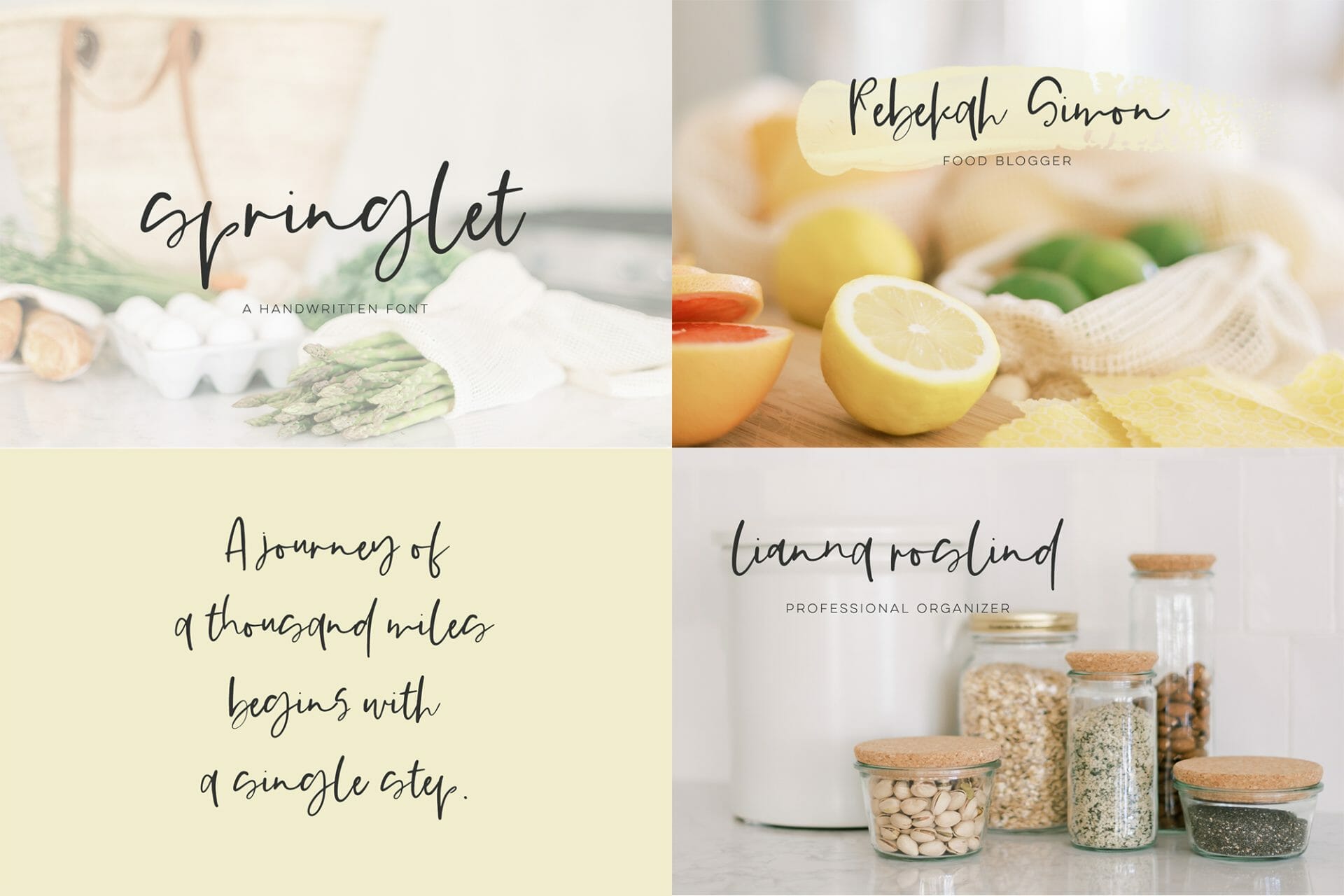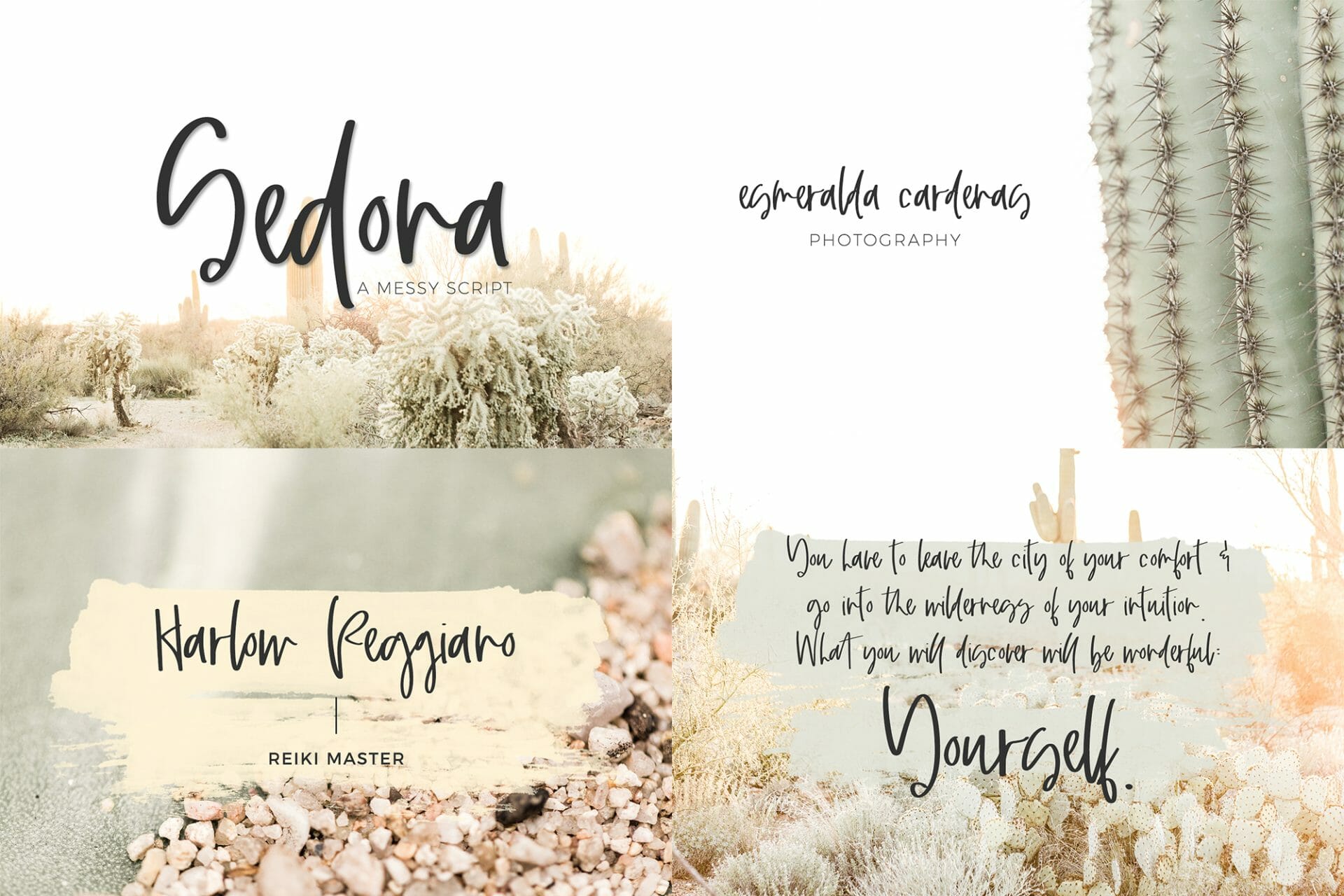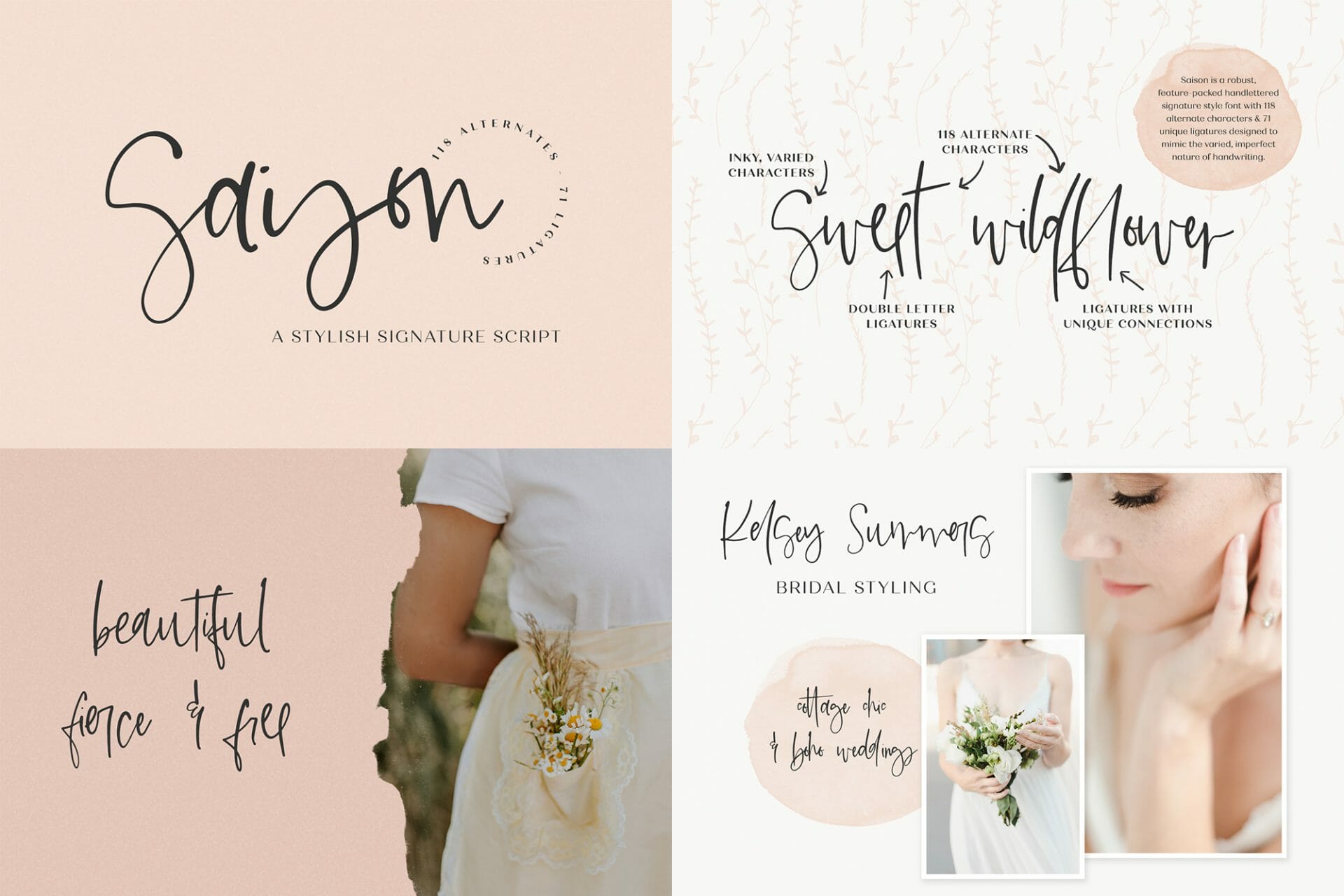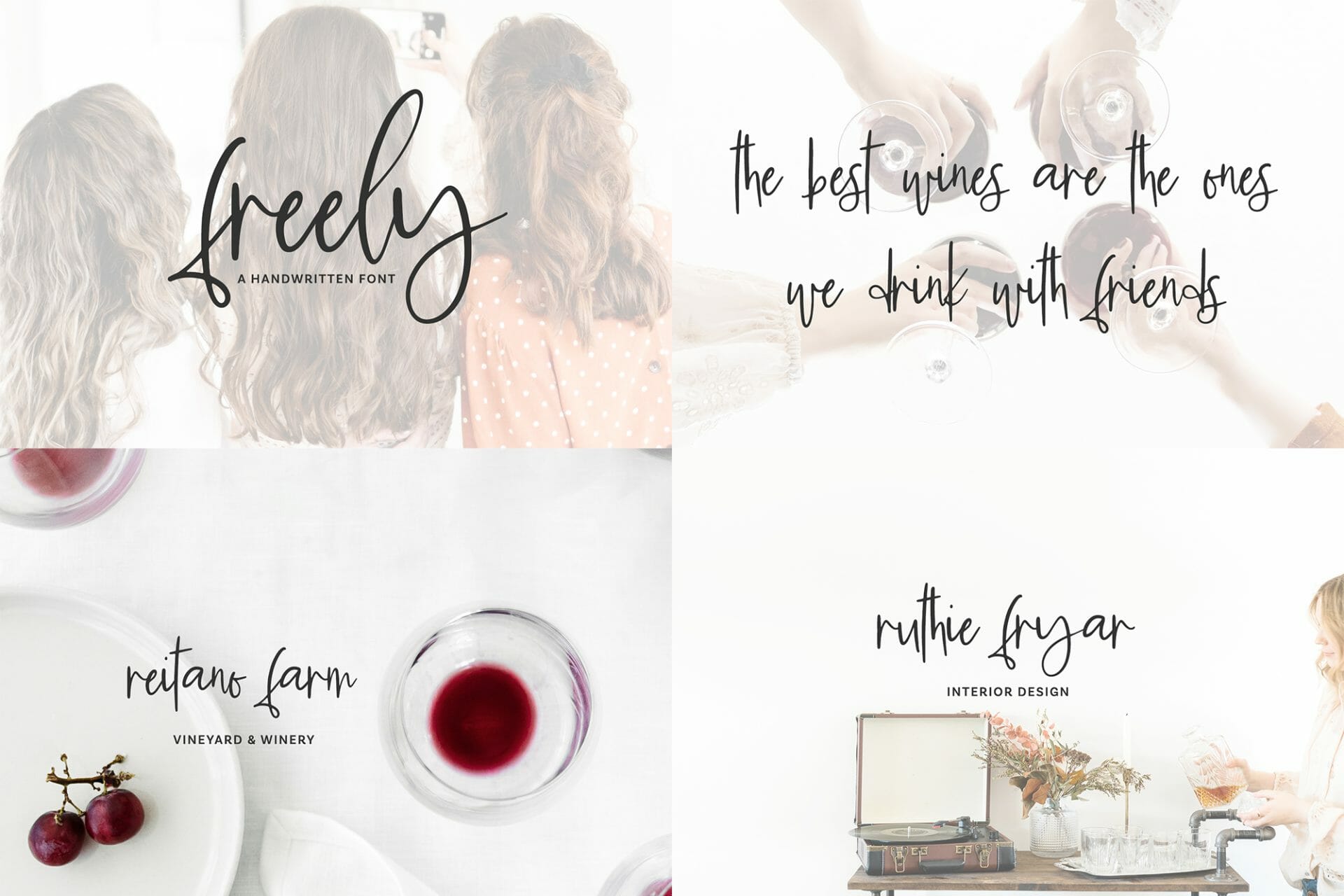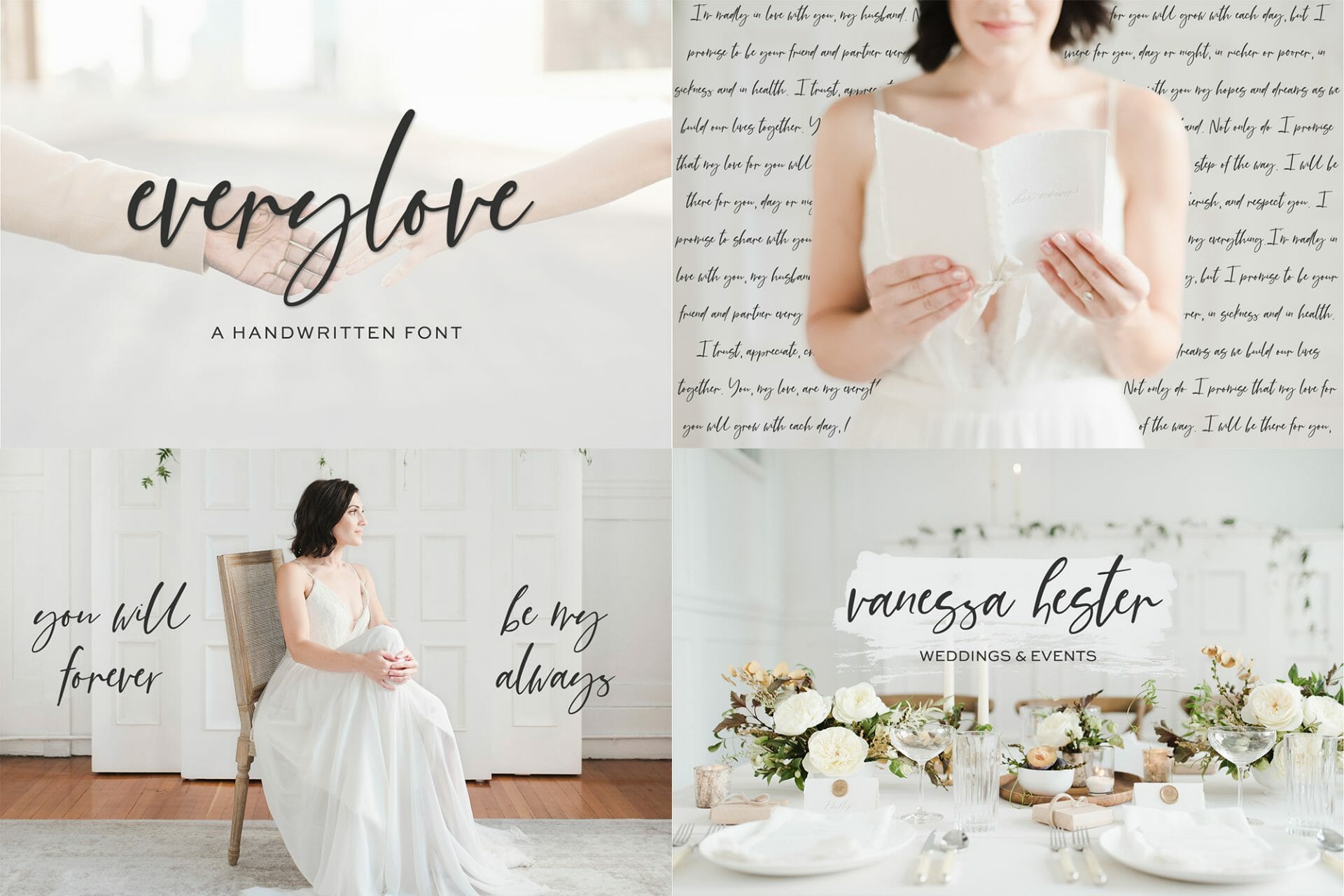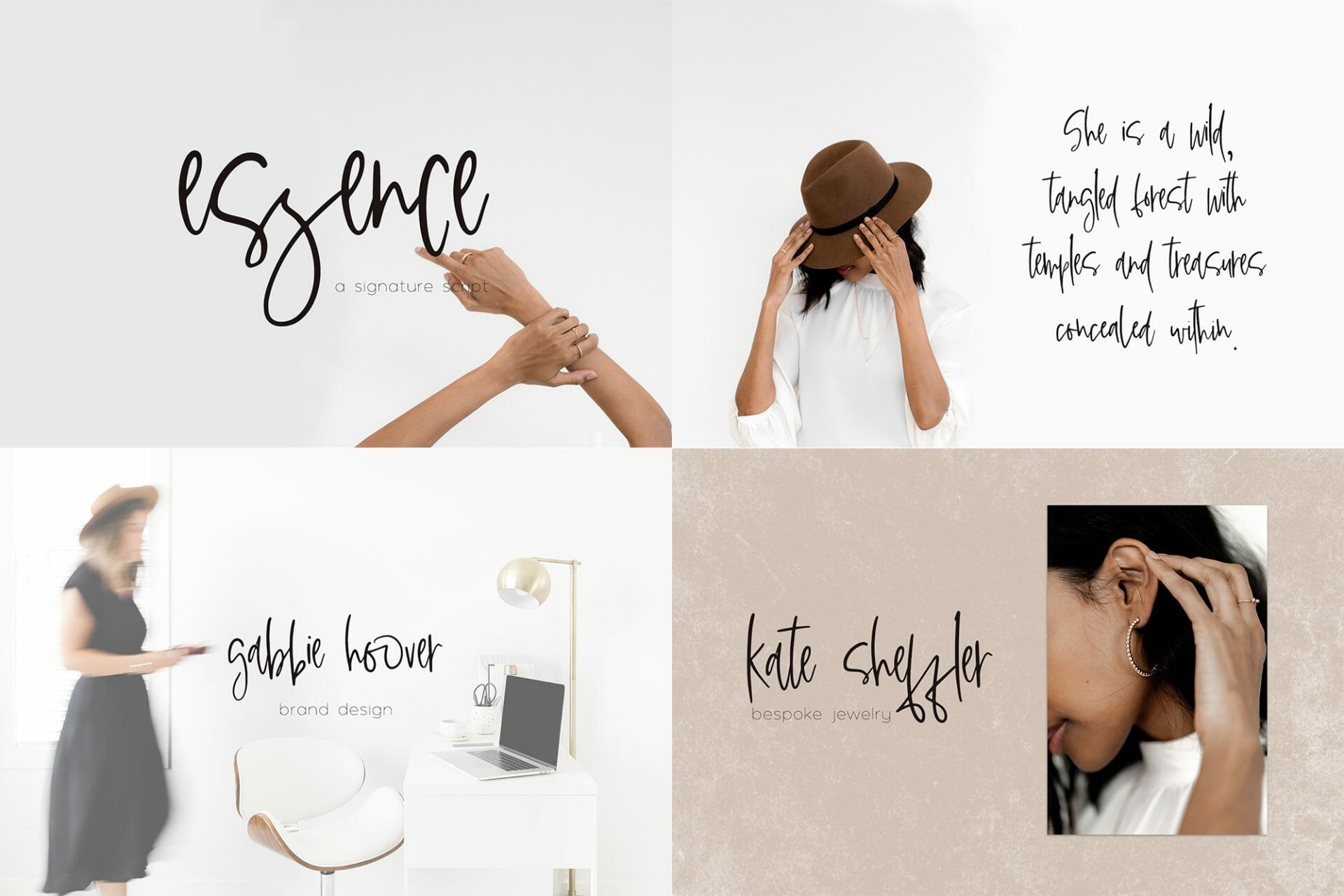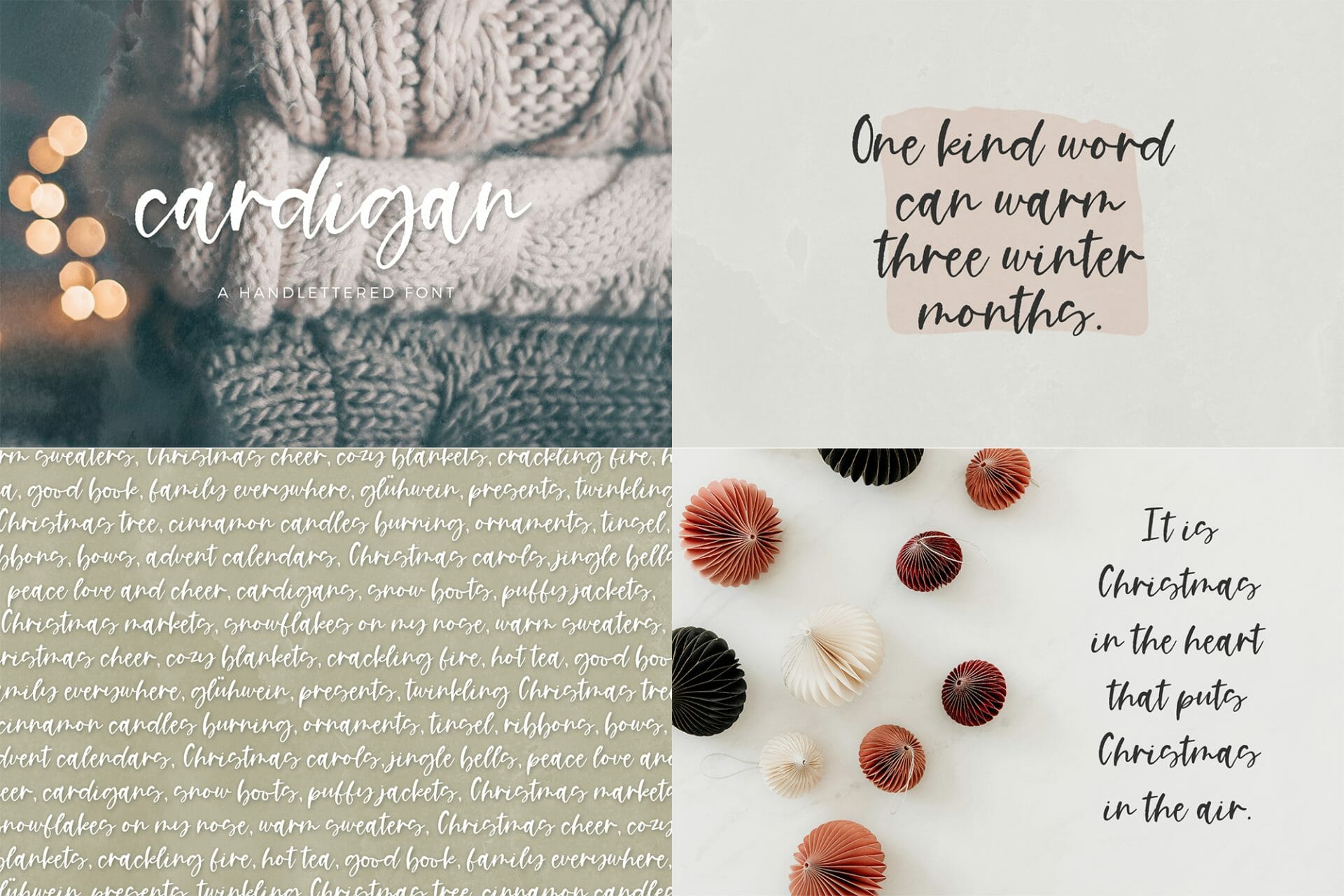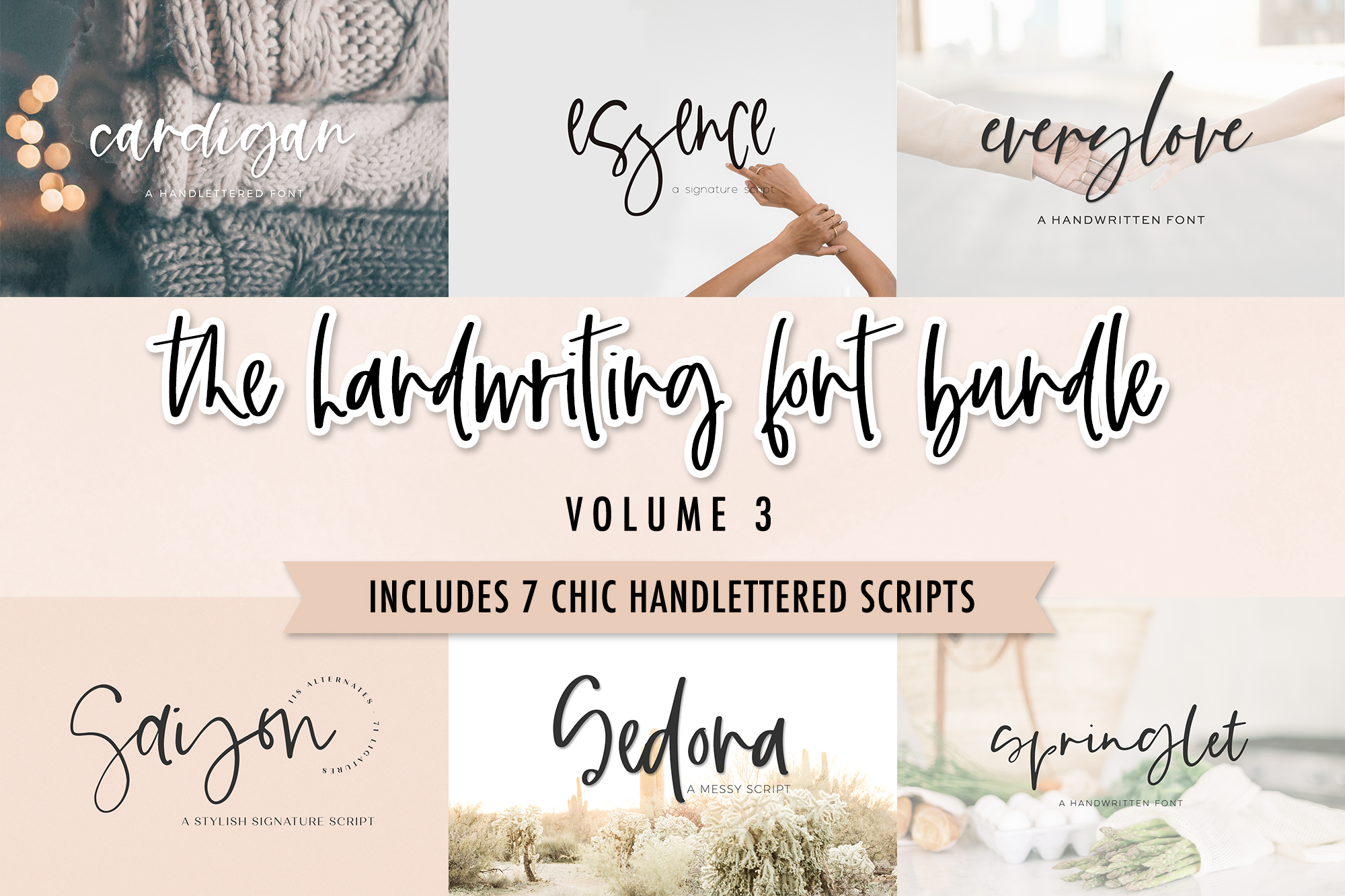
Sedona
Springlet
Everylove
Saison
Freely
Essence
Cardigan
This font bundle is a chic, stylish bundle for all of your handwritten font needs! This bundle includes seven fonts, featuring a contemporary signature style, giving your logo & branding, website, and other projects the perfect handwritten look & feel.
– Sedona Script (includes 26 alternate characters, 9 ligatures)
– Springlet Script (includes 26 alternate characters)
– Everylove Script (includes 29 alternate characters, 14 ligatures)
– Saison Script (includes 118 alternate characters, 71 ligatures)
– Freely Script
– Essence Script (includes 26 alternate characters, 15 ligatures)
– Cardigan Script (includes 3 alternate characters, 2 ligatures)